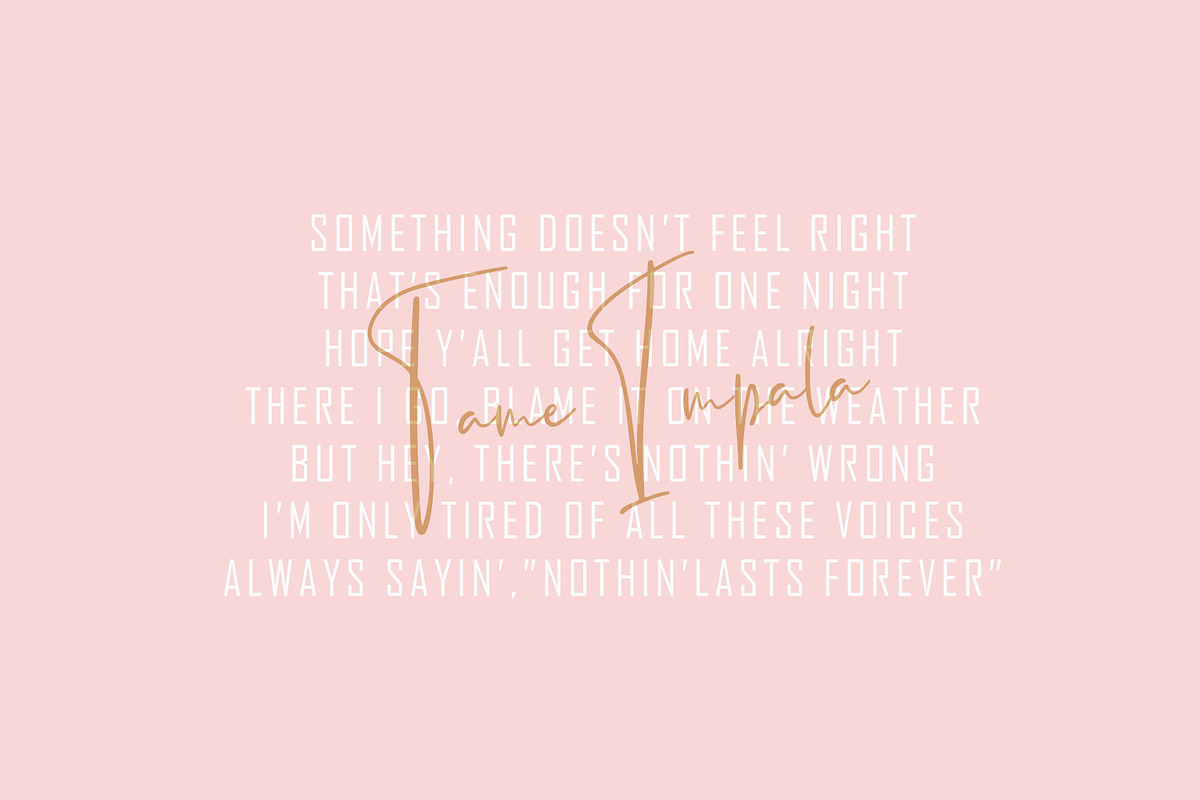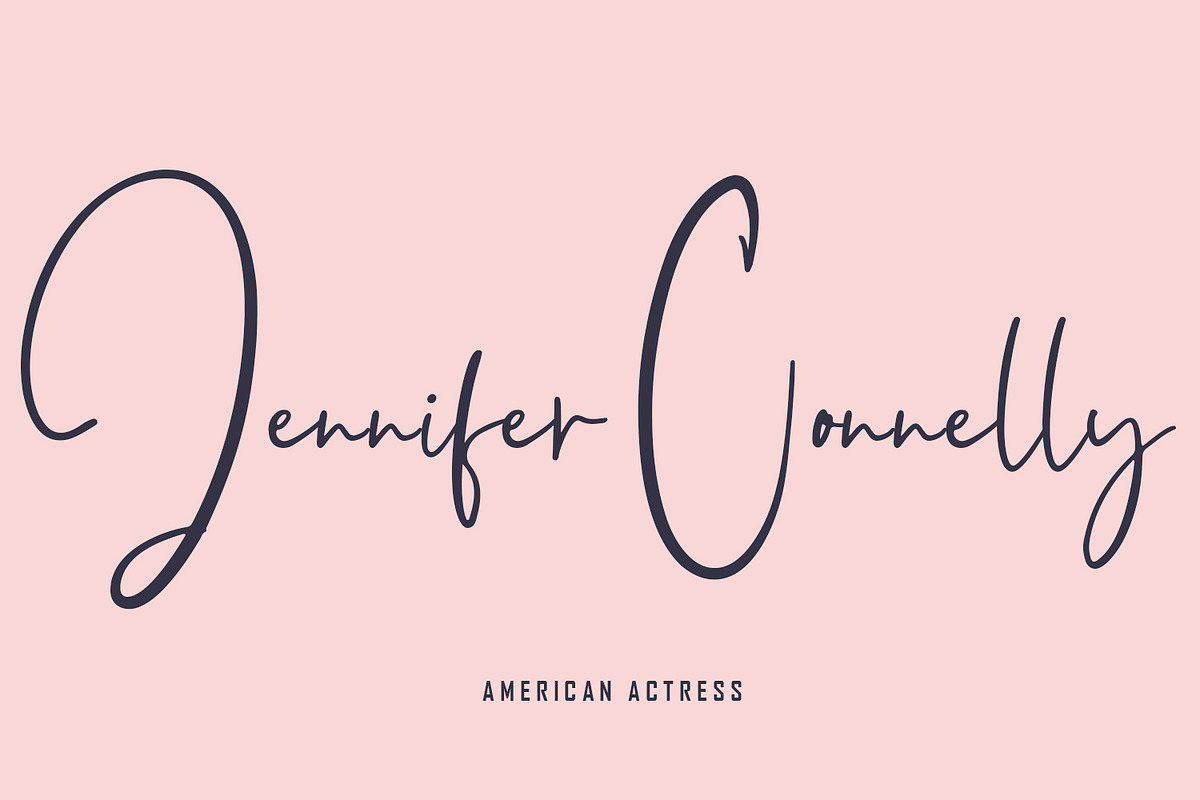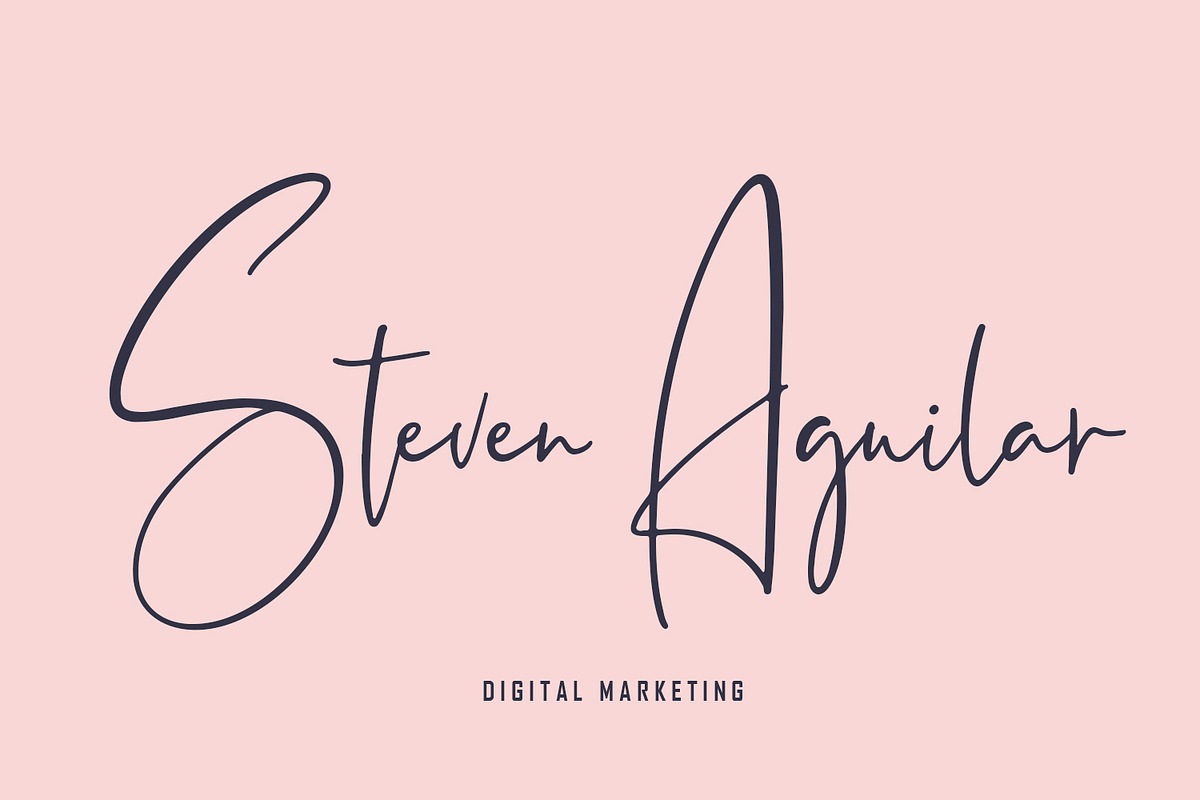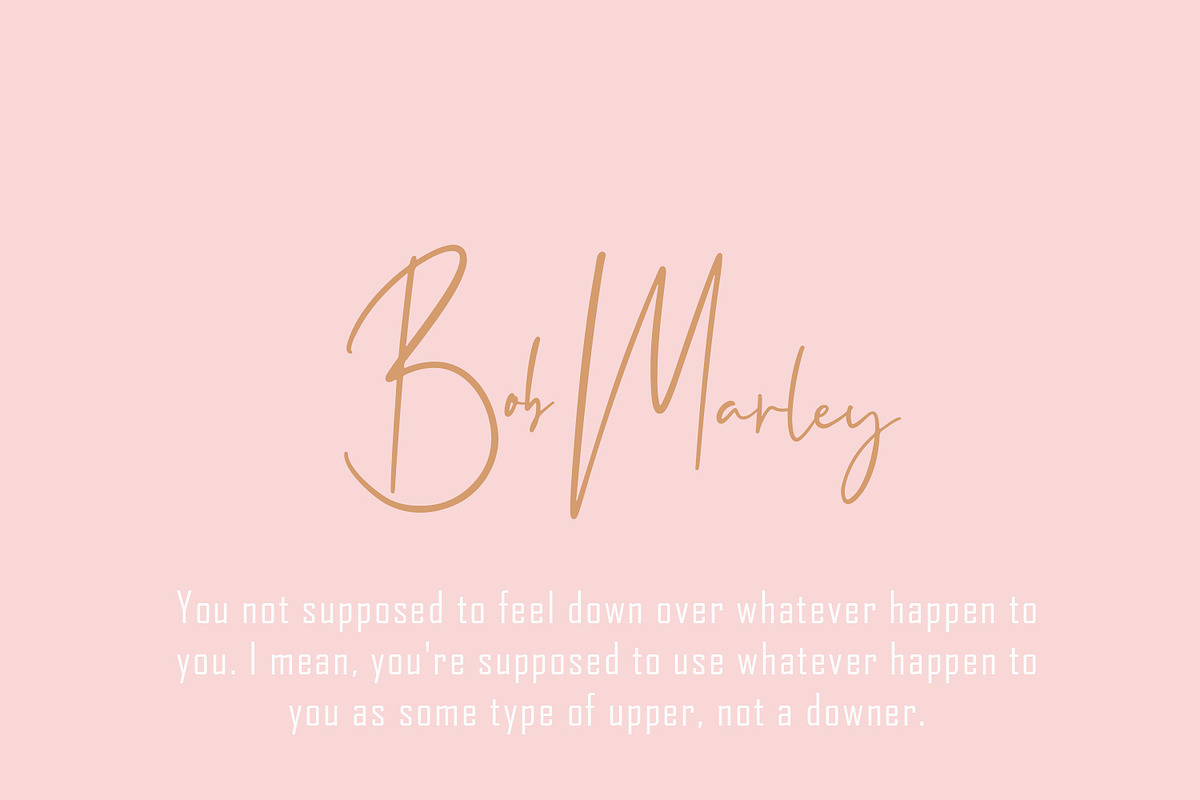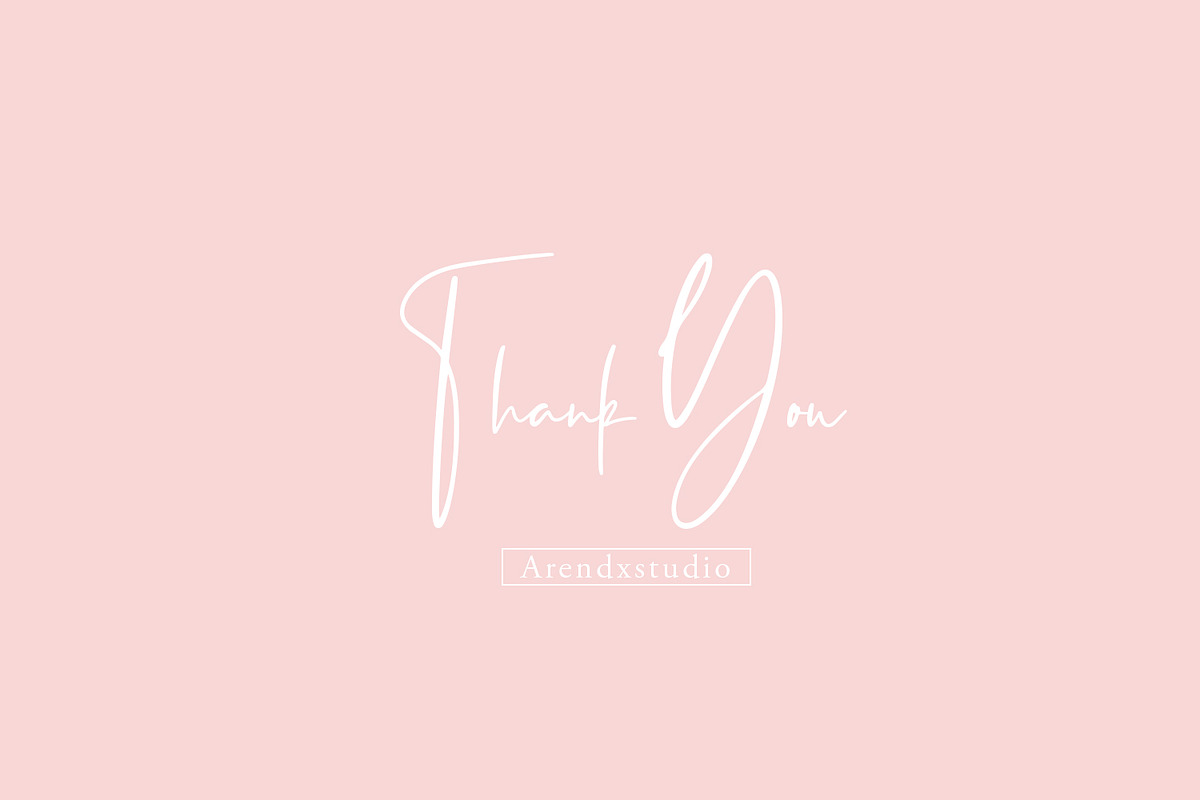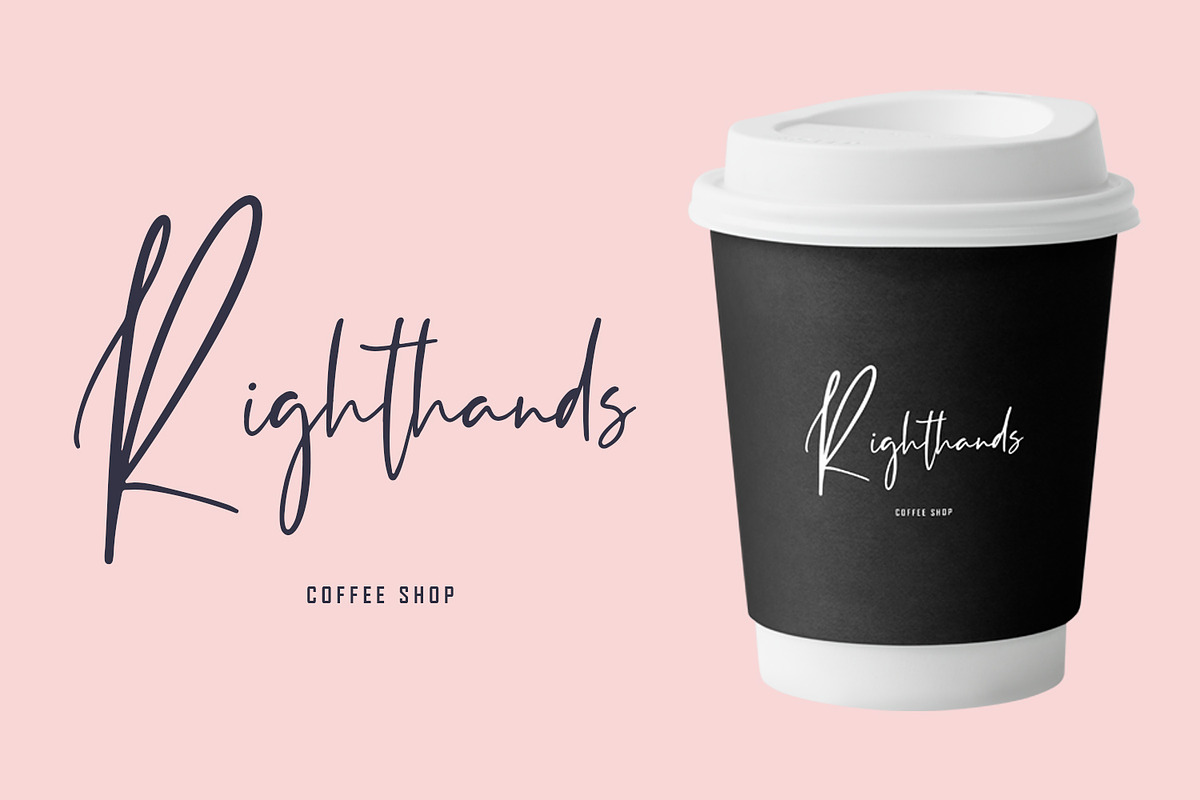
Panopticon - Signature Font
Introducing Panopticon Signature, a handwritten font which is very elegant and modern for you to use and your design interests be it for logos, branding names, posters, podcasts and so on. This is perfect for you all.